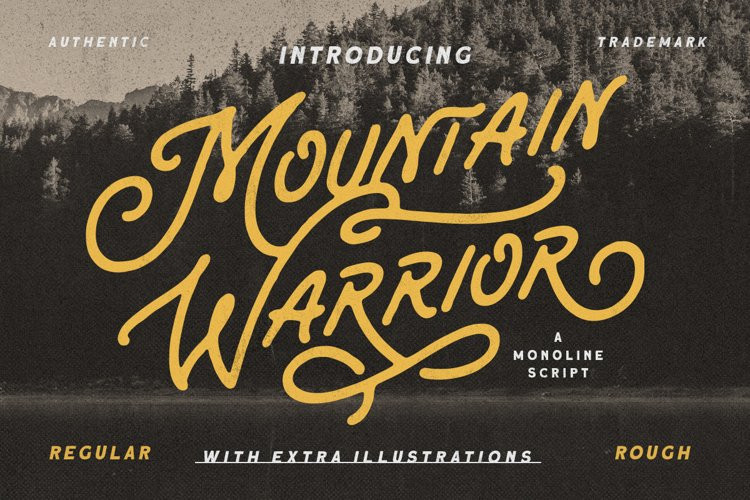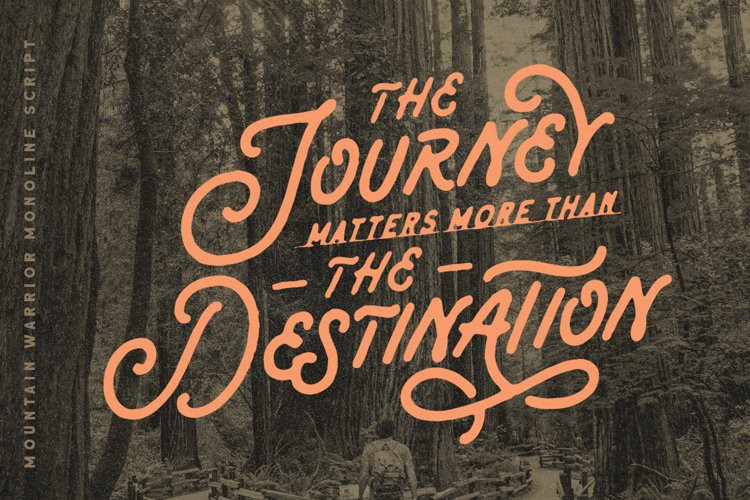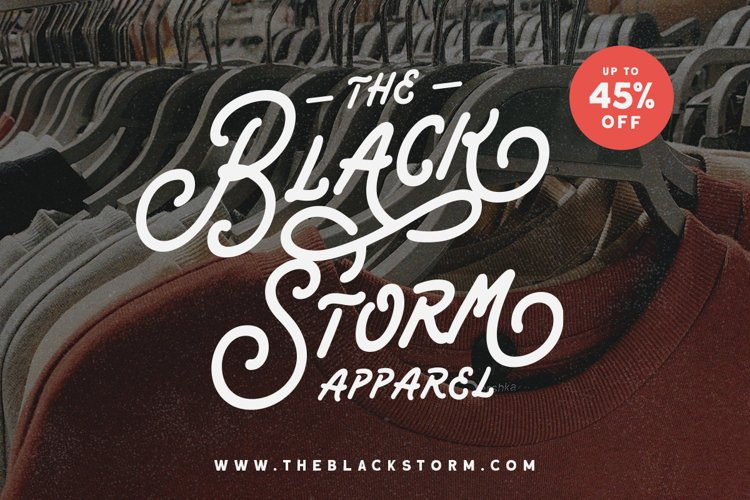
Mountain Warrior Font
Mountain Warrior FontMountain Warrior is a monoline script with a touch of retro look and feel. This type of font perfectly made to be applied especially in logo, headline, signage and the other various formal forms such as invitations, labels, logos, magazines, books, greeting / wedding cards, packaging, fashion, make up, stationery, novels, labels or any type of advertising purpose.